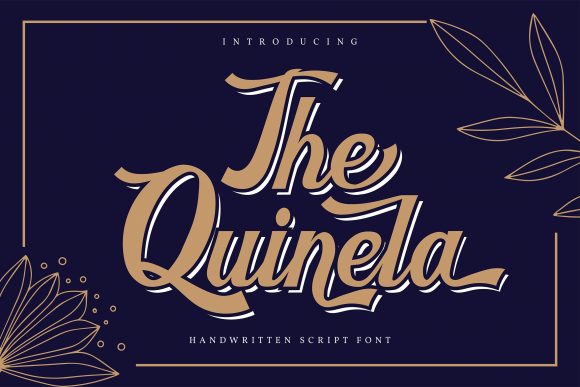
**Introducing The Quinela Font: The Ultimate Style Statement for Your Projects**
Unleash the power of The Quinela Font, an exquisite and captivating handwritten typeface that will transform your design vision into a breathtaking reality. Crafted with meticulous attention to detail by renowned designer Vunira, this font is a testament to the art of typography, poised to take your branding to unparalleled heights of sophistication.
Immerse yourself in the world of The Quinela Font, where elegance and style intertwine to create a visual masterpiece. Its graceful curves and enchanting swashes will captivate your audience, leaving an indelible mark on their minds. Whether you're designing eye-catching logos, mesmerizing printed quotes, or creating a vibrant online presence, this font is your passport to design excellence.
Step into the spotlight with The Quinela Font, the perfect choice for those seeking a font with an undeniable presence. Its flawless execution and versatility make it an ideal companion for a wide range of design projects. From streetwear designs that exude an air of effortless coolness to packaging that demands attention, this font has the chameleon-like ability to adapt to any style.
Prepare to captivate with The Quinela Font, a font that embodies the essence of creativity and passion. Each letter is a stroke of genius, meticulously crafted to convey a message of elegance and sophistication. Your designs will shimmer with an unparalleled allure, leaving a lasting impression that lingers long after your audience has turned the page.